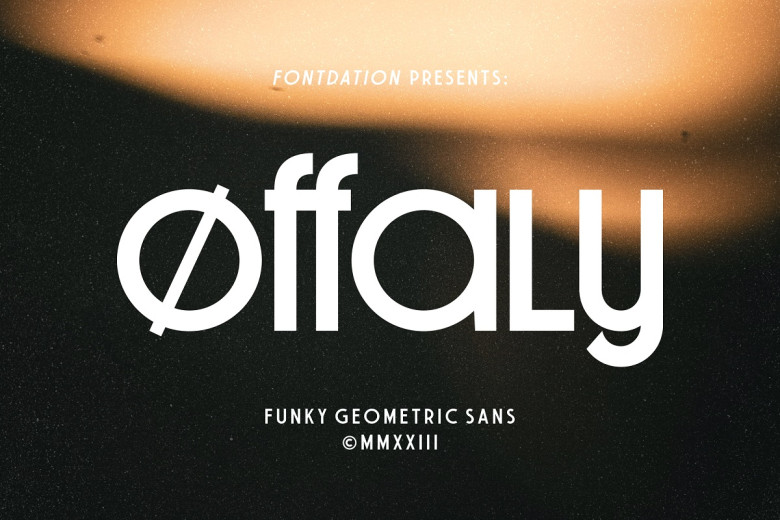
Offaly Font
Offaly is an elegant geometric sans serif font designed with fun geometric forms in mind. Offaly has a neat and smooth appearance, combine lowercase letters with uppercase ones for harmonious combinations of letters that work great for branding, headline, quote, poster design or poster applications.
Offaly Sans Serif Font